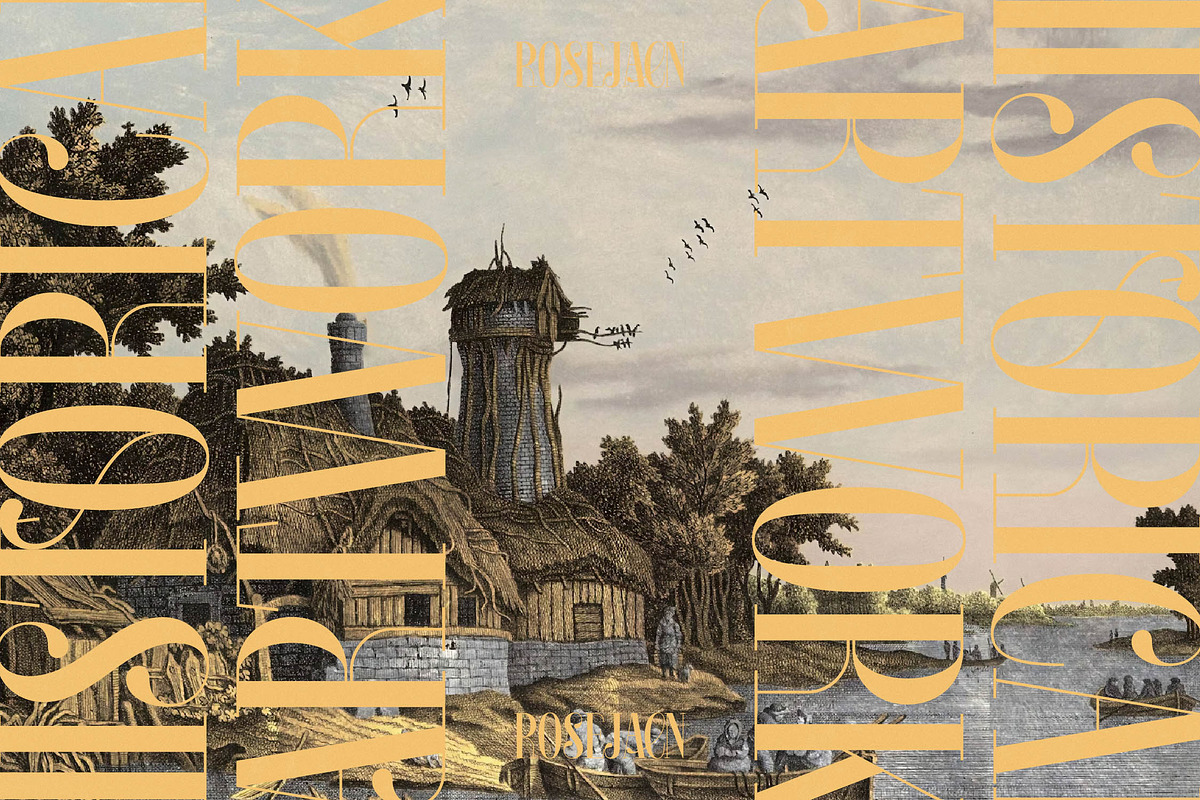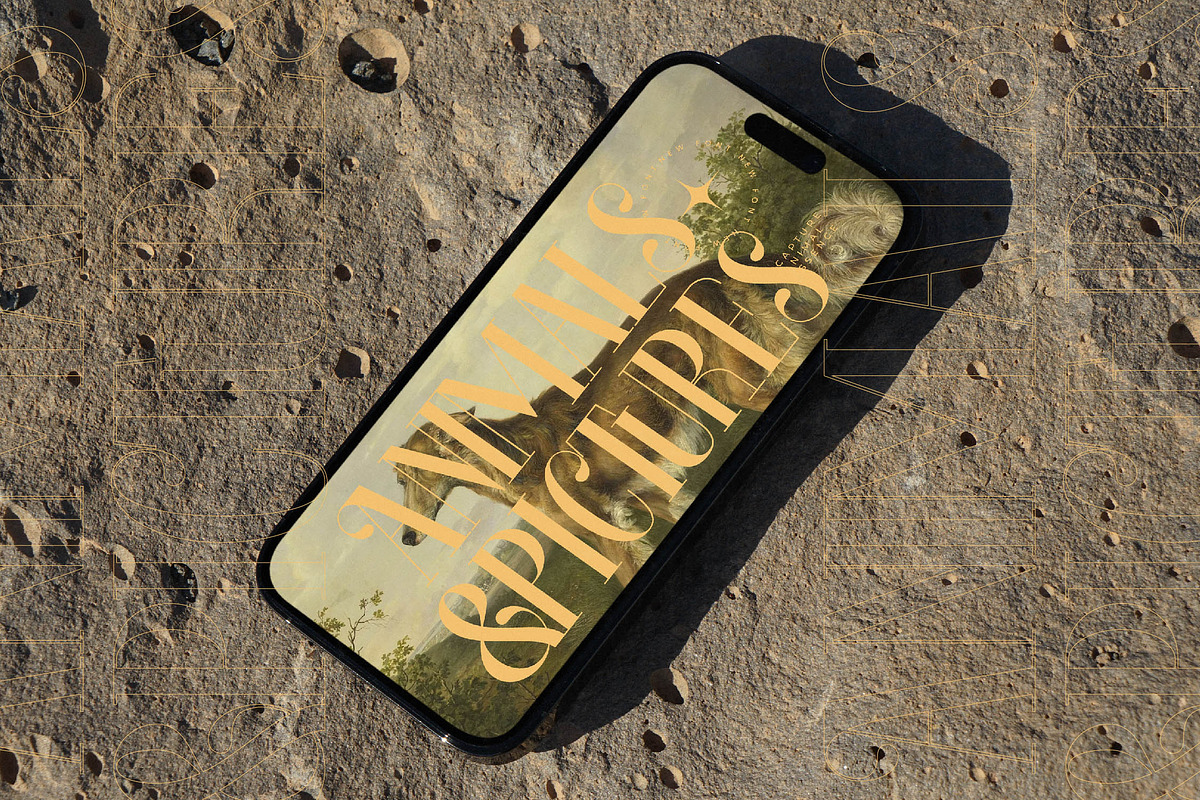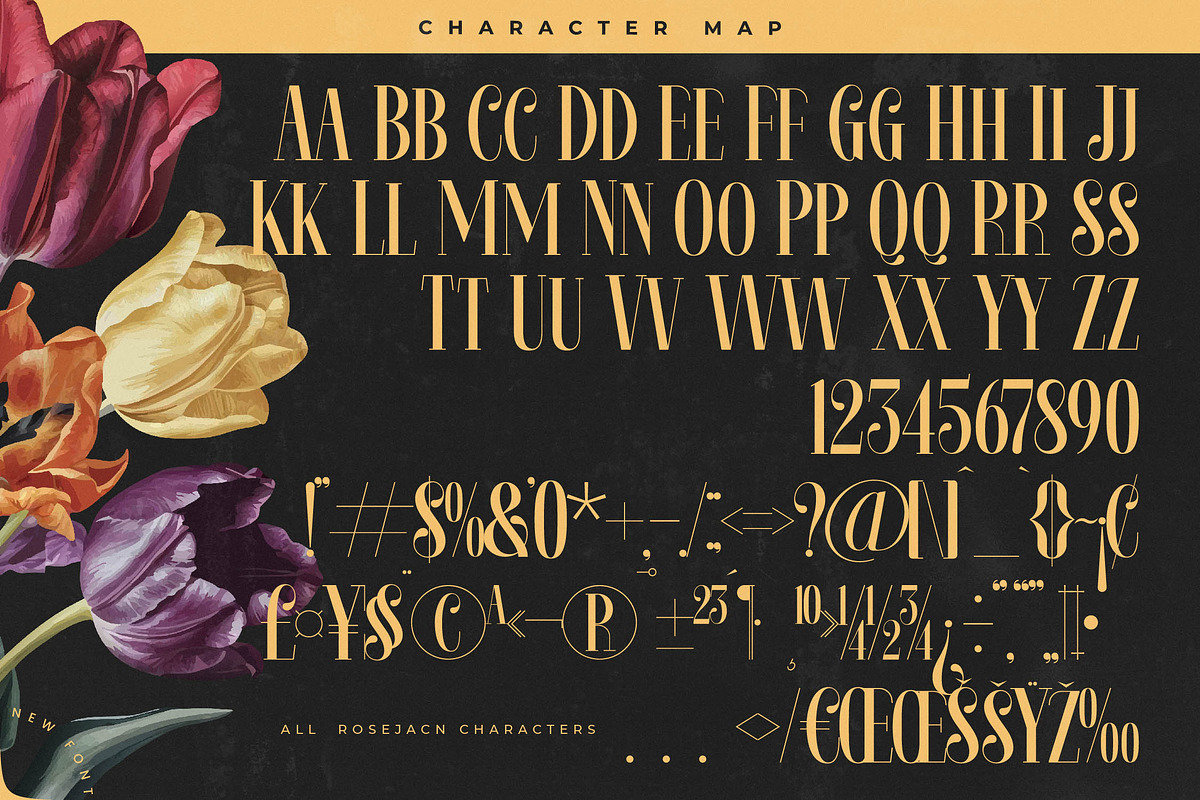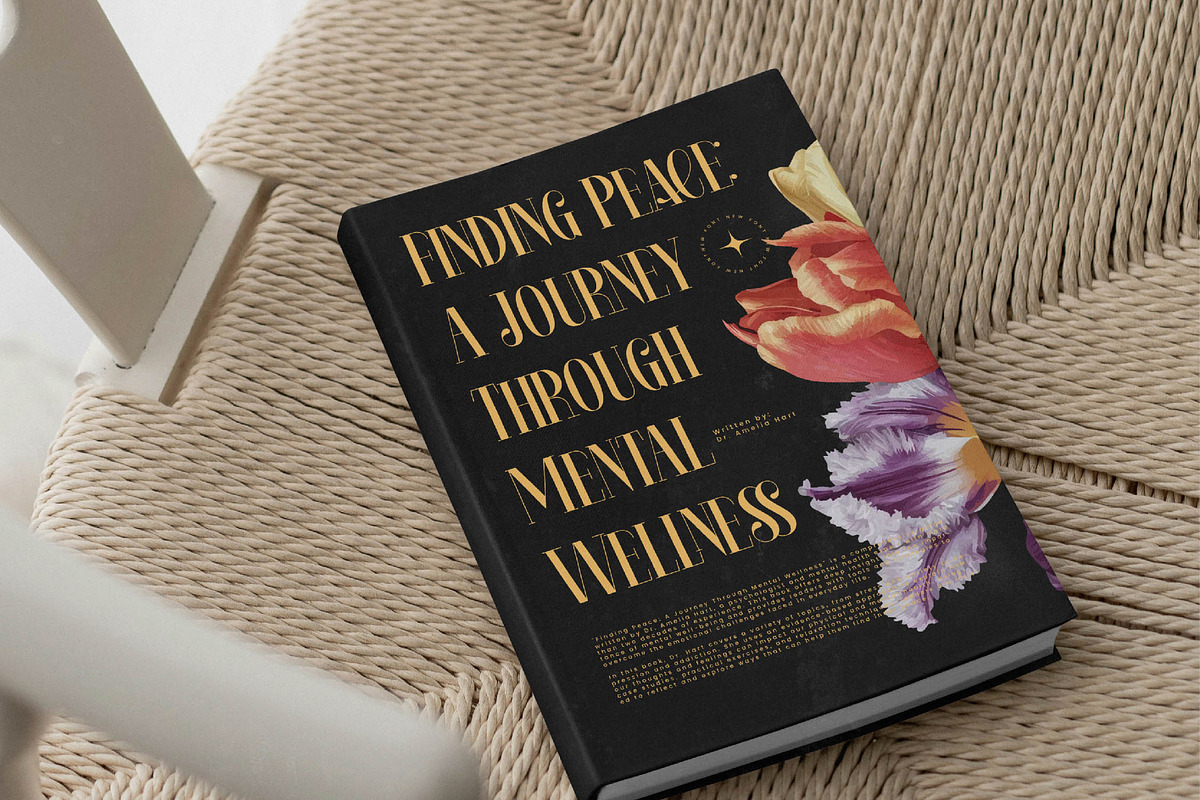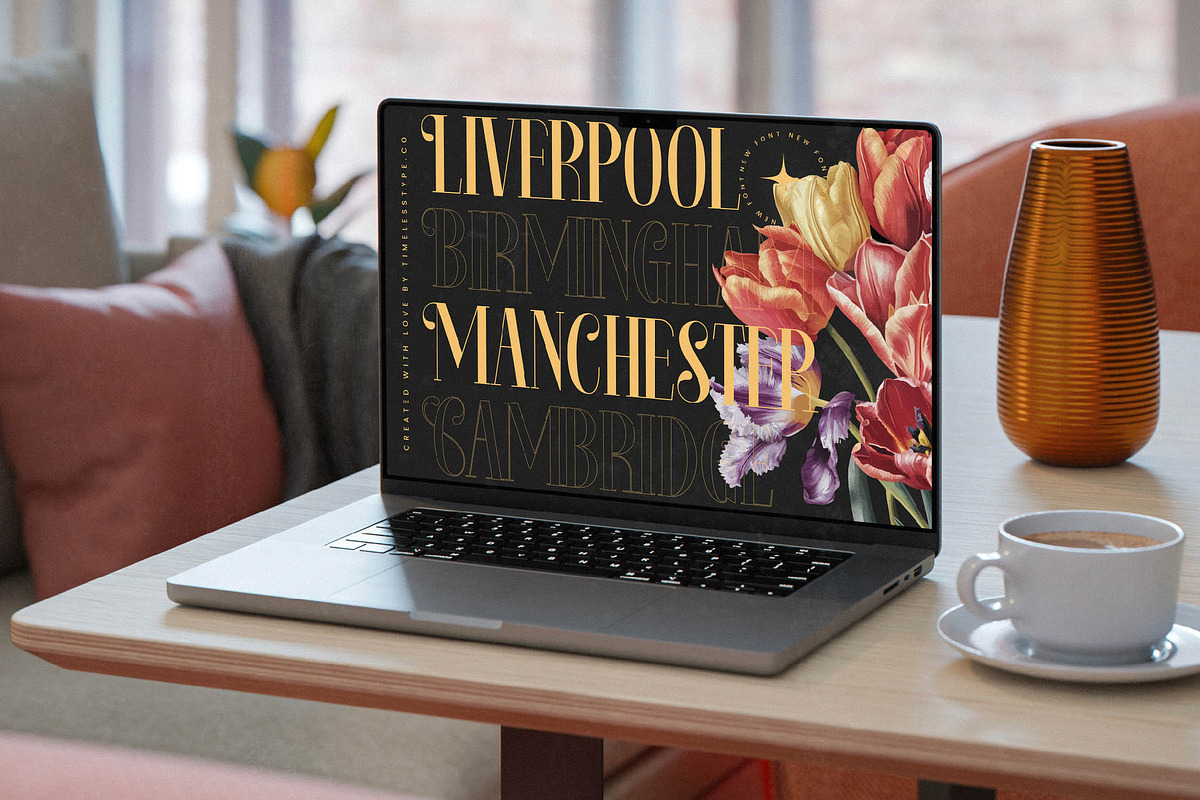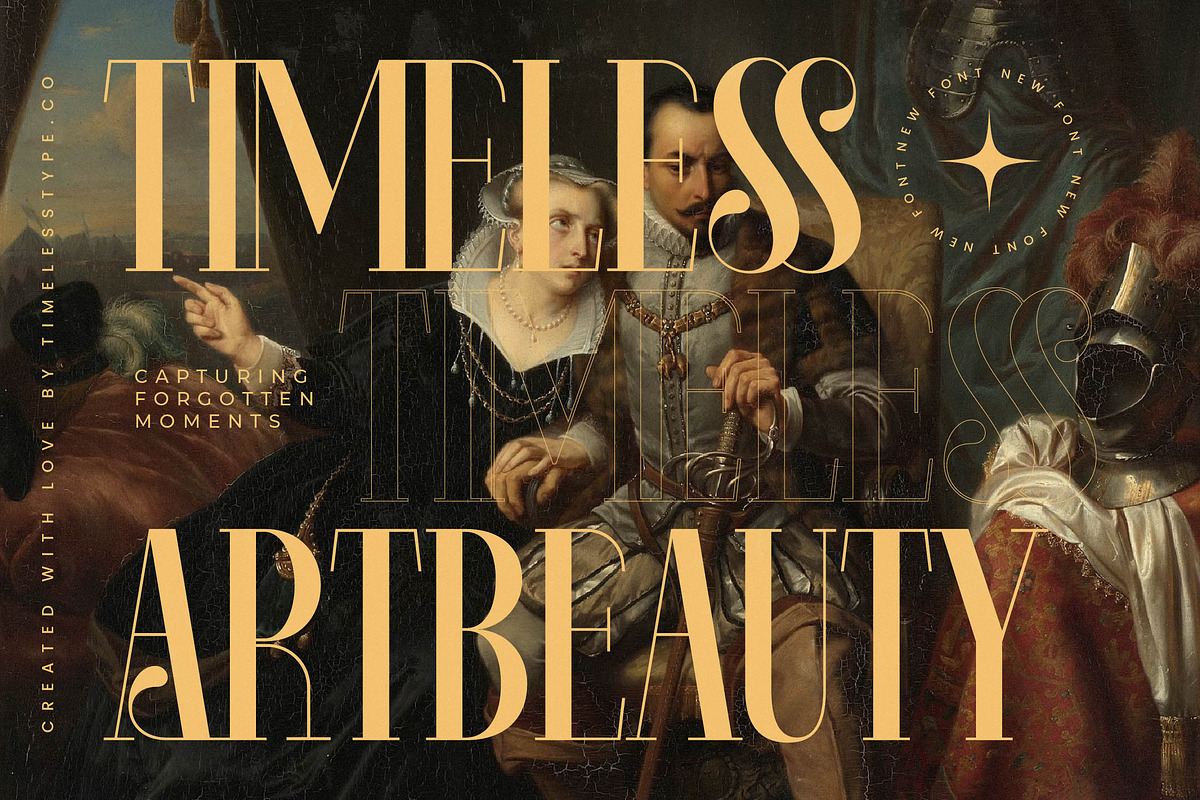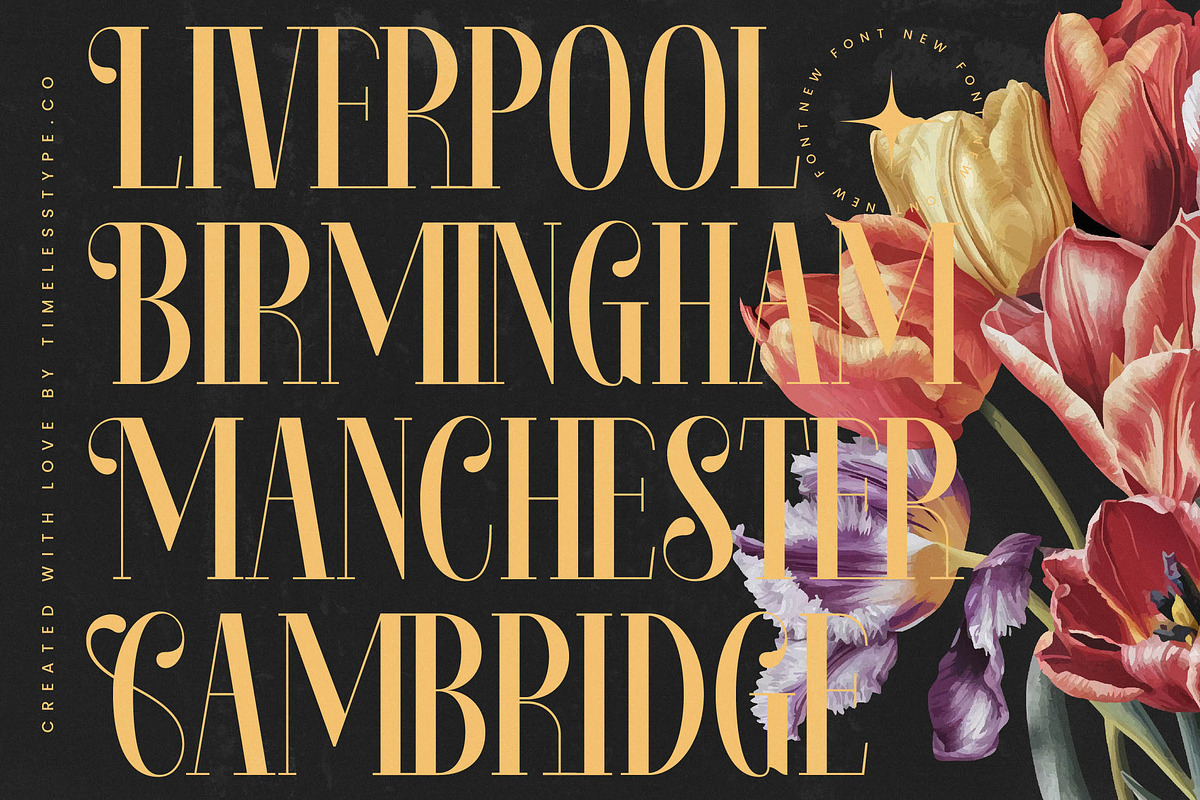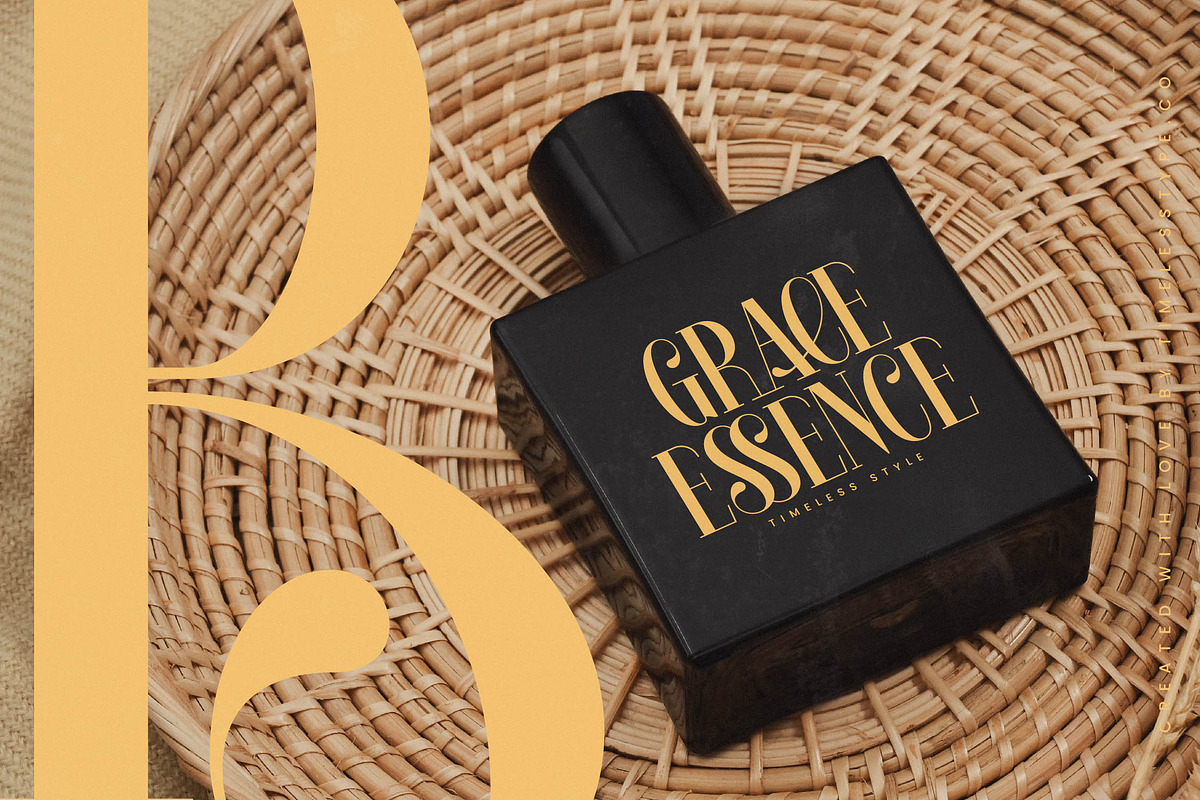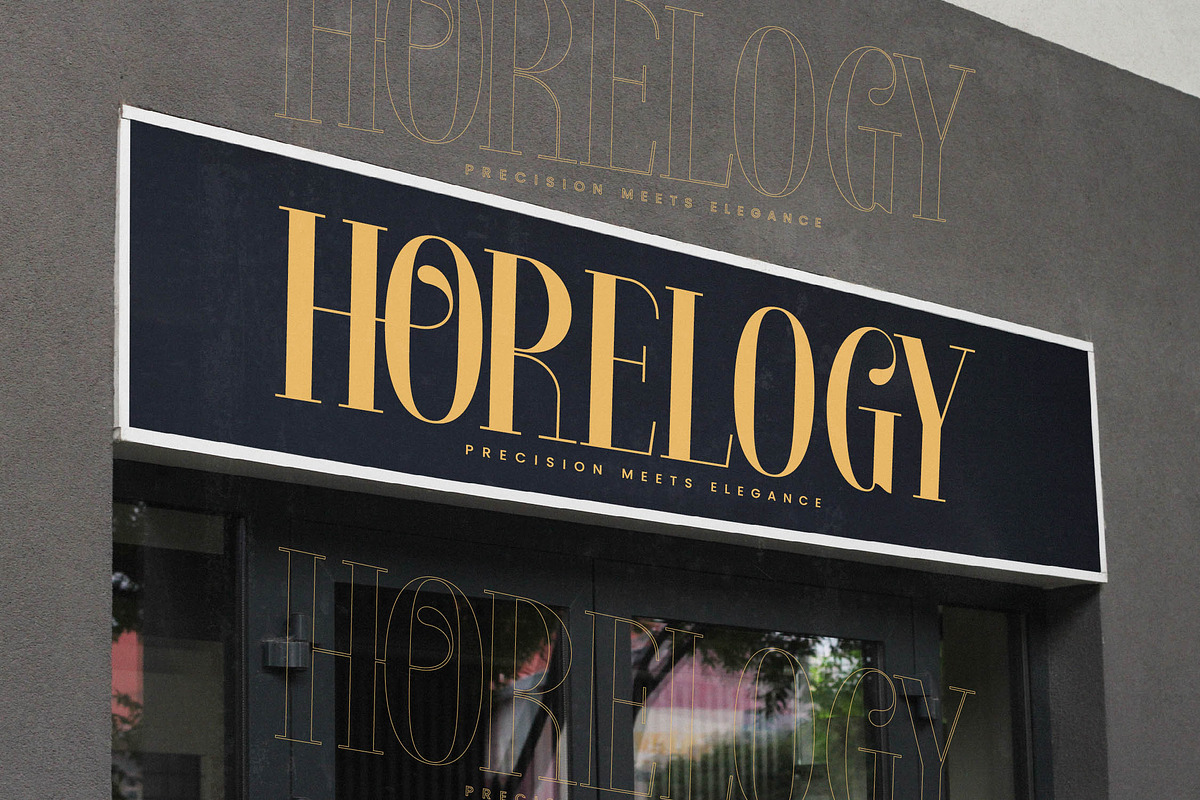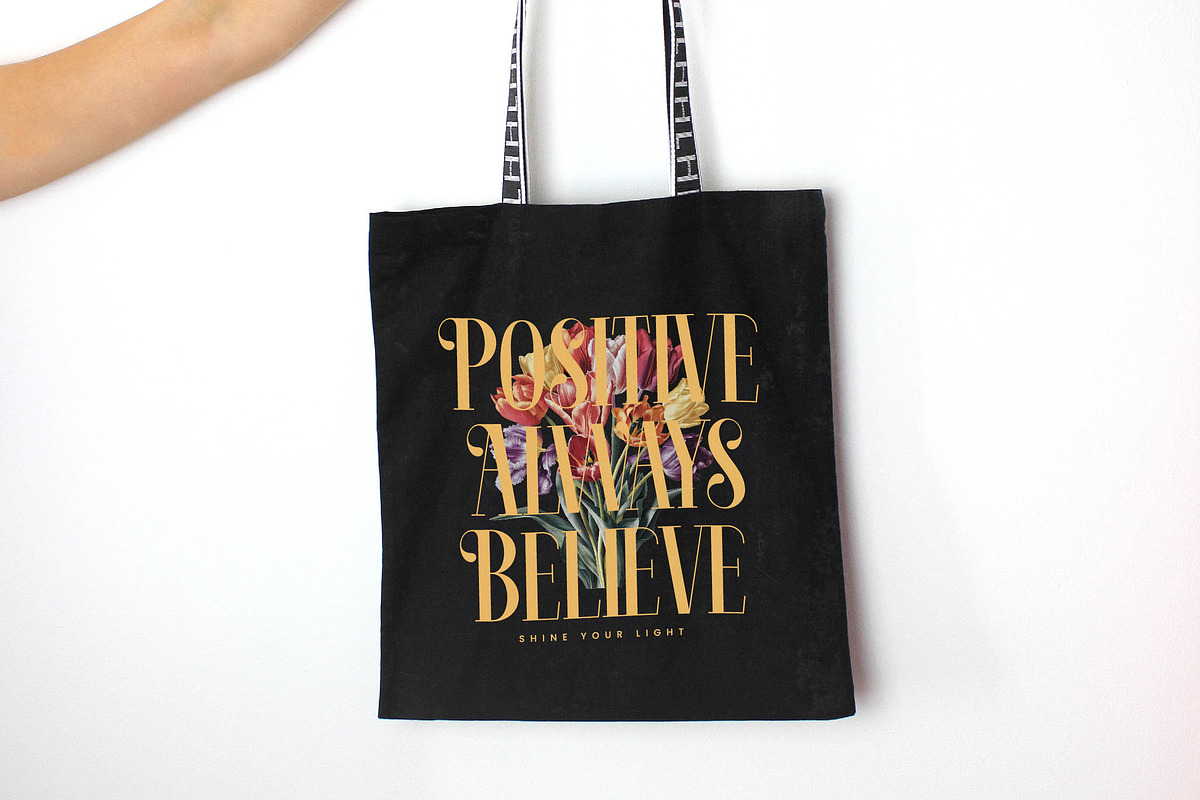
Rosejacn Modern Display Serif
Elevate your creative vision with the sophisticated allure of Rosejacn Modern, a typeface designed to command attention and evoke timeless elegance. This stunning display serif blends classic proportions with a contemporary edge, ensuring every word resonates with grace and authority.
Inspired by the delicate yet striking beauty of botanical aesthetics and the golden age of fashion editorial, this font captures a sense of curated luxury. It draws from the intricate lines of high-end jewelry and the lush textures of vintage floral arrangements to create a visual atmosphere that feels both organic and meticulously polished.
As a modern serif display choice, this typeface delivers unparalleled luxury typography through its high-contrast serif strokes and elongated forms. It is a quintessential editorial font crafted for maximum branding impact, offering a rhythmic flow that balances razor-sharp edges with soft, curving decorative elements.
Perfectly aligned with the current modern serif trend, this typeface meets the growing demand for editorial display fonts that feel personalized and artisanal. By embracing character-driven typography, it moves beyond basic utility to become a central design element that reflects a brand's unique and prestigious identity.
This versatile font is the ultimate solution for sophisticated logo design and high-end branding projects that require a touch of distinction. Whether it is used for an avant-garde editorial spread, premium product packaging, romantic wedding stationery, or bold fashion signage, its presence is unmistakably refined.
Unlock endless creative possibilities with over 60 custom ligatures and 80 unique alternates that allow for custom-tailored layouts and bespoke text treatments. The extensive character set includes decorative swashes and full multilingual support, featuring international characters to ensure your message reaches a global audience with flawless precision.
- Ligature 60 Alternate 80